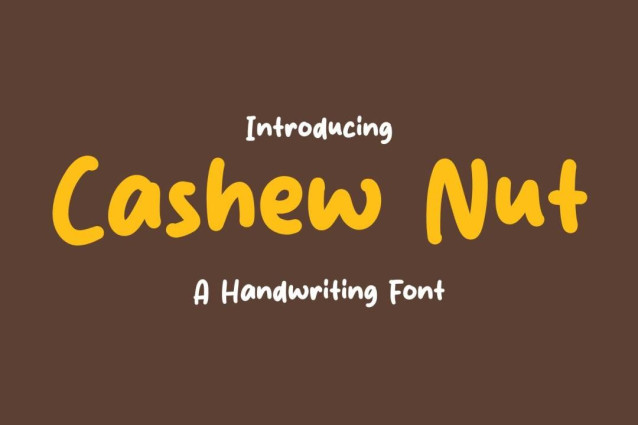
Cashew Nut Font
Cashew Nut Font a sweet and friendly handwritten font. Cute and fun, this font is ideal for writing wedding invitations, cards, or any other design that might need a fun touch!